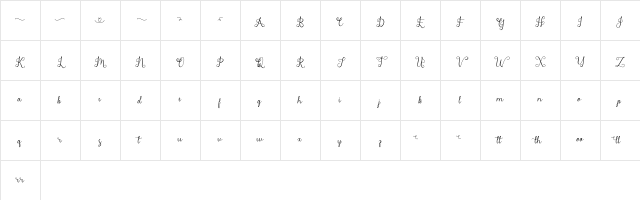
MadameNaila is a composed and adaptable typeface that performs quietly and consistently across a wide range of design contexts. Its slender proportions lend an understated elegance to any composition.